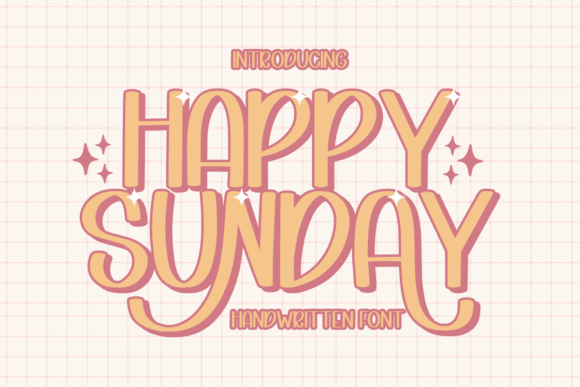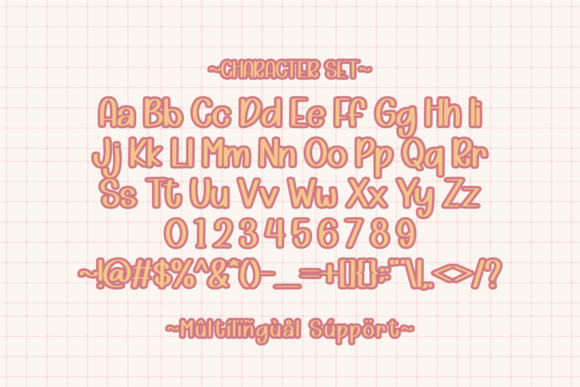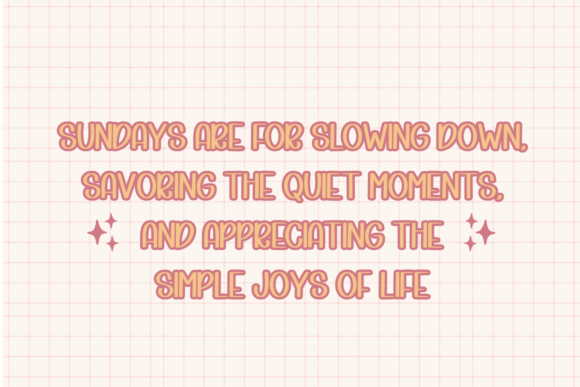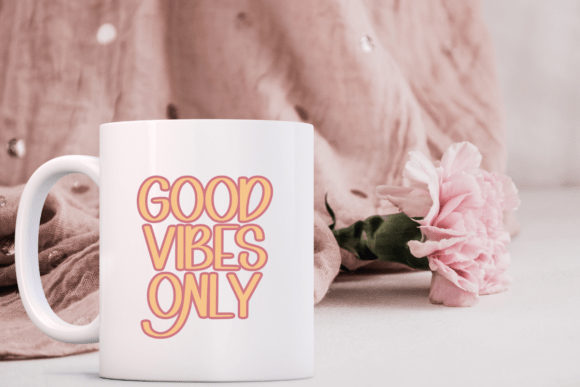
Happy Sunday Font: A Cute Bold Font for Cricut & DIY Projects
About the Happy Sunday Font
Experience the unique personality of Happy Sunday Font, a font designed for impact. Happy Sunday is a fun and bold handwritten font that’s perfect for crafts, planners, KDP, stickers, greeting cards, and more. With its cute and friendly style, it works great for Cricut, sublimation, and creative DIY projects. Ideal for crafters, designers, and makers!
Happy Sunday’s playful, hand-drawn style shines in headlines, short-form content, and branding applications requiring a friendly, approachable feel. It’s excellent for projects like logos for artisan businesses, social media graphics, and packaging for children’s products. Avoid using it for large blocks of text or body copy; its informal nature makes extended reading difficult.
Pair Happy Sunday with a clean sans-serif like Open Sans for a balanced contrast, or a more geometric sans-serif for a modern feel. A simple serif like Lora can add a touch of sophistication while maintaining readability if used in supporting text.
The font’s overall personality is undeniably cheerful and informal, making it unsuitable for applications demanding elegance or seriousness.